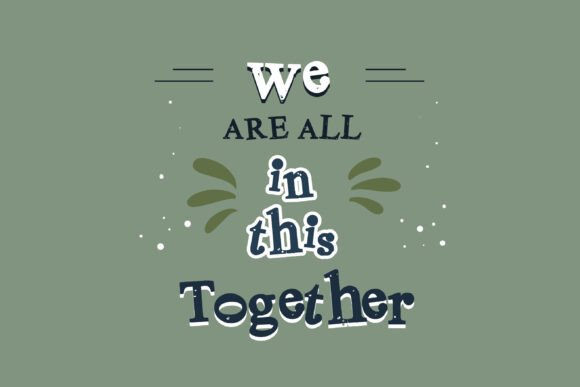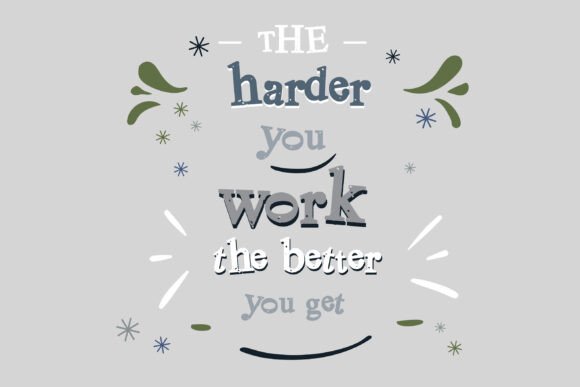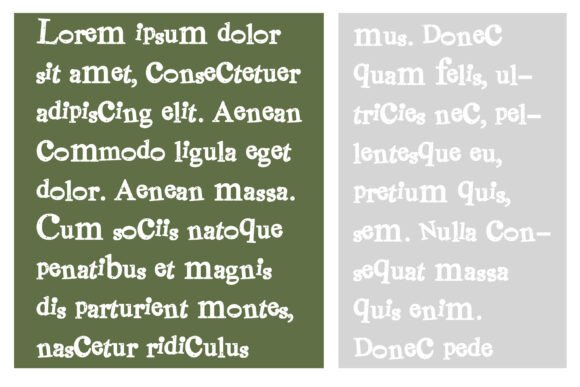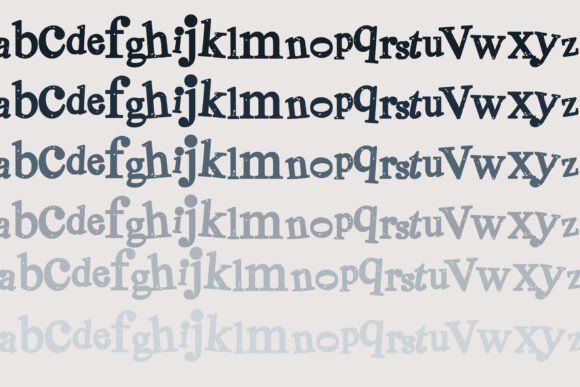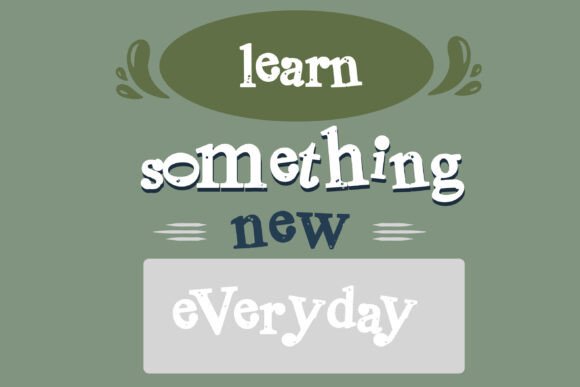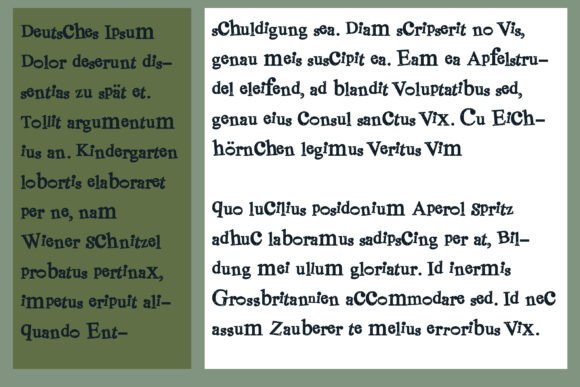
Discovering the Perfect Handwritten Touch
Have you ever been scribbling down ideas in a notebook, and suddenly a beautiful handwritten font appears in your mind? That’s exactly what happened to me when I first stumbled upon the Inclinerator Font. This charming hand-crafted serif font is more than just a pretty face – it’s a versatile tool for designers looking to add a personal touch to their projects.
The Inclinerator Font is a squatty font with a bouncy baseline and mid-sized lettering, making it perfect for invitations, greeting cards, and other items that require a touch of elegance. With its bold version included, designers can experiment with different styles and create unique visual identities for their clients. Whether you’re a seasoned pro or just starting out, the Inclinerator Font is a valuable addition to any designer’s toolkit.
Inclinerator Font Key Features
- Font Family: Inclinerator Font
- Unique Characteristics: The Inclinerator Font features a distressed, industrial look with bold lines and a rough texture, making it ideal for use in designs that require a vintage or retro feel.
Review: Inclinerator Font
Overall, I think Inclinerator Font has a lot of potential, but it falls short in a few areas. Let’s start with the positives. ✨ The font’s unique, wavy design elements add a touch of personality to any project, and the varying weights make it suitable for both title text and body copy. The font’s versatility is also a major plus, as it works well in a range of digital applications, from website headers to social media graphics.
Some of the things that work well include:
- ✨ Unique, hand-drawn design elements
- ✨ Varying weights for flexibility
- ✨ Suitable for digital applications
However, there are a few limitations to consider. ⚠️ The font’s irregular shape and varying line widths can make it difficult to read in certain contexts. Additionally, the font’s design elements can be a bit overwhelming if used too extensively, which may detract from the overall message.
Overall, I would give Inclinerator Font 3.5 out of 5 stars. While it’s a great choice for adding a touch of personality to a project, it may not be the best option for projects that require clear, easy-to-read text.
Alternatives to Inclinerator Font
Pacifico is a beautiful, elegant script font that is perfect for creating a luxurious and sophisticated feel. It is ideal for use in high-end branding, advertising, and editorial design. Pacifico has a more refined and polished look compared to Inclinerator Font, which has a more distressed and vintage feel.
Great Vibes is a modern, cursive script font that is perfect for creating a fun and energetic feel. It is ideal for use in advertising, social media, and digital design. Great Vibes has a more dynamic and playful look compared to Inclinerator Font, which has a more relaxed and casual feel.
Carolyna Pro is a elegant, modern script font that is perfect for creating a sophisticated and stylish feel. It is ideal for use in branding, advertising, and editorial design. Carolyna Pro has a more refined and polished look compared to Inclinerator Font, which has a more distressed and vintage feel.
Alex Brush is a elegant, handwritten font that is perfect for creating a personal and intimate feel. It is ideal for use in branding, advertising, and editorial design. Alex Brush has a more refined and polished look compared to Inclinerator Font, which has a more distressed and vintage feel.